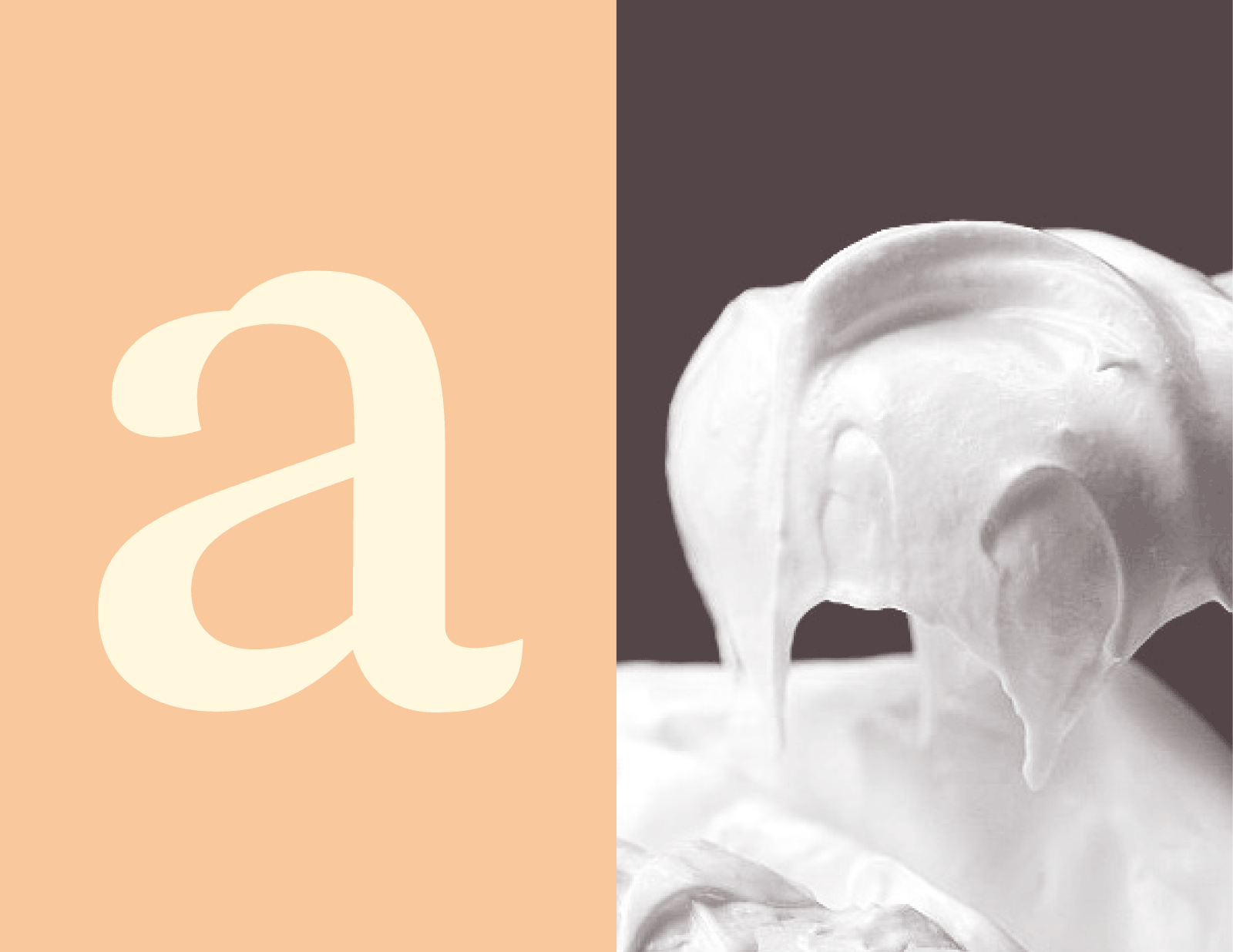
Meringue
Meringue was designed to be delicious — it’s suitable for use with fun yet fancy products, signage and packaging. It has both fluffy curves and sharp details throughout. The bold italic is an exaggeration of the curves, pinch,and brush-like tails.
The letters were constructed from my calligraphic drawings based on the humanist model. I loved the unique “pinch” element that was naturally created by the tool, so I exaggerated this element as well as the rounded terminals and serifs.
I chose the name Meringue because it was one of the only few gluten-free deserts I could eat here in Paris. It did also, however, fit great with the font’s light, fluffy texture and twisted, sharp tops.
Meringue comes in regular as well as bold italic. The bold italic is a super exaggeration of the pinch, curves and brush-like tails.
In addition to the 26 upper- and lowercase letters in the English language, this typeface also includes old-style numerals, punctuation, ligatures and several diacritics.
Meringue is a high-contrast display typeface designed by Shauna Hartsook from Calgary, AB, Canada.